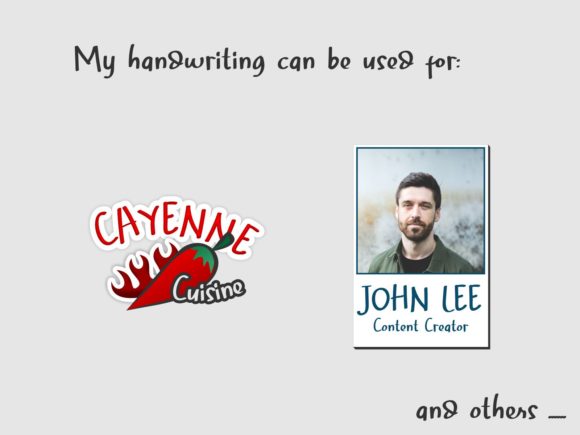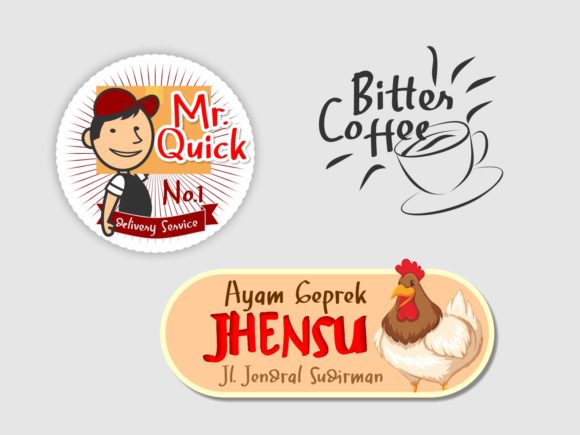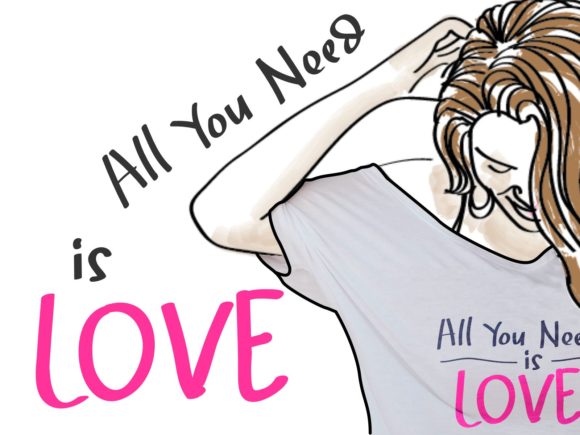
Introduction to Ota’s Handwriting Font
Remember the moment when your creative project finally comes together, and you’re about to unleash it to the world? It’s that instant of pure excitement and nervous anticipation, when every detail matters. As a designer, you know how crucial it is to have the perfect visual element to elevate your work. That’s where Ota’s Handwriting Font steps in – a delicate, elegant, and flowing handwritten font that adds a touch of sophistication to any design.
With its beautiful and well-balanced characters, Ota’s Handwriting Font is a valuable resource for designers looking to add a personal touch to their projects. Whether you’re working on a high-quality brochure, a creative website, or a design project that requires a unique flair, this font is sure to make your ideas come alive. And the best part? It’s available for free download, making it an accessible design resource for anyone looking to take their creativity to the next level.
One of the standout features of Ota’s Handwriting Font is its versatility – it can be paired with a transparent background or used on its own, making it a versatile design element for any creative project.
Key Features of Ota’s Handwriting Font
- Unique, high-quality handwriting font perfect for creative projects and design resources.
- Designed with a high resolution (300 DPI) for crisp and clear display in various sizes and applications.
- Perfect for use in digital design, such as logos, typography, and graphics, as well as in print media, like posters and flyers.
Honest Review: Ota’s Handwriting Font
Ota’s Handwriting Font is a unique and creative design resource that’s perfect for adding a personal touch to your projects. As a designer, I appreciate its high quality and versatility, making it a great addition to my toolkit.
- ✨ High-quality vector graphics ensure crisp and clear rendering, even at large sizes.
- ✨ The font’s creative and playful style makes it ideal for children’s books, educational materials, and other projects that require a friendly tone.
- ✨ The transparent background option provides flexibility for designing against any background or image.
However, I do have a few reservations about Ota’s Handwriting Font. ⚠️ The font’s lack of support for certain special characters and accents may limit its use in languages that require these symbols. Additionally, the font’s file size is relatively large, which may be a concern for projects with tight file size restrictions.
Overall, I’m impressed with Ota’s Handwriting Font’s potential and would recommend it as a design resource for creative projects. While it’s not without its limitations, its unique style and high quality make it a valuable addition to any designer’s toolkit.
Tips for Getting the Most Out of Ota’s Handwriting Font
To get the most out of Ota’s Handwriting Font, use it in combination with other design elements, such as images and shapes. You can also experiment with different font sizes and colors to create unique and creative effects. Additionally, consider using the font in combination with a transparent background to create a more modern and sleek design.
Common Use Cases for Ota’s Handwriting Font